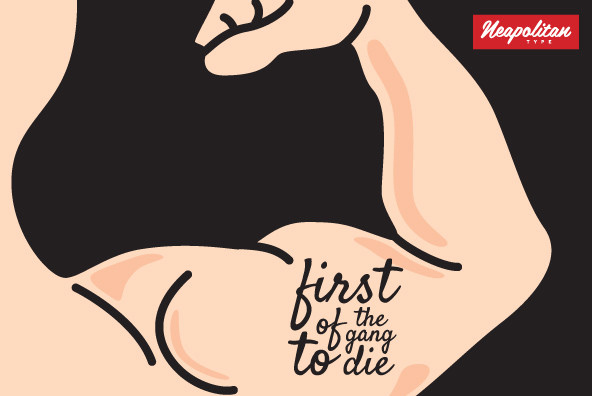
Satisfy Pro Font
Satisfy Pro Font is perfect for customer service branding, satisfaction guarantee campaigns, client appreciation materials, quality assurance communications, fulfillment-focused marketing, success celebration graphics, achievement recognition programs, and gratifying advertising projects. This fulfilling typeface works exceptionally well in both digital applications and print media where customer satisfaction and fulfillment are essential design elements.
What makes Satisfy Pro Font so exciting is its harmonious interpretation of fulfillment and customer satisfaction through balanced letterforms that embody the same sense of completion and contentment that defines truly satisfying experiences and successful customer relationships. The font features contented characters with satisfying proportions, fulfilling curves, and gratifying details that communicate success, achievement, and the profound satisfaction that comes from meeting and exceeding expectations. Its fulfilling personality and success-oriented heritage make it ideal for service brands seeking to communicate reliability and customer satisfaction while appealing to audiences who value quality, excellence, and the gratifying experience of receiving exceptional service.
The Satisfy Pro Font family includes multiple weight variations with different satisfaction levels, along with fulfilling alternates and success-oriented ornamental elements. Each style maintains the typeface's gratifying character while offering comprehensive character sets including successful numerals, satisfaction-focused punctuation marks, and special symbols designed to enhance customer communications and fulfillment branding efforts across various gratifying contexts.
This extraordinary typeface represents the perfect fusion of customer satisfaction principles and contemporary typography for service and quality-focused industries. Whether you're developing customer service identities, creating satisfaction guarantee materials, or designing quality assurance campaigns, Satisfy Pro Font Free Download delivers the fulfilling reliability and versatility needed to establish trust with satisfaction-seeking customers. The font's gratifying approach makes it particularly effective for service companies, quality-focused businesses, customer success organizations, and brands emphasizing the importance of customer satisfaction and the gratifying experience of exceptional service delivery.
The carefully crafted satisfying details and optimized fulfillment performance in Satisfy Pro Font ensure both authentic contentment and clear communication across all customer-focused applications. Its gratifying presence makes it perfect for satisfaction branding, fulfillment marketing materials, and success communications where its full satisfying character can create lasting contentment and establish immediate association with quality, reliability, and the profound satisfaction that comes from exceptional customer experiences and successful service delivery.